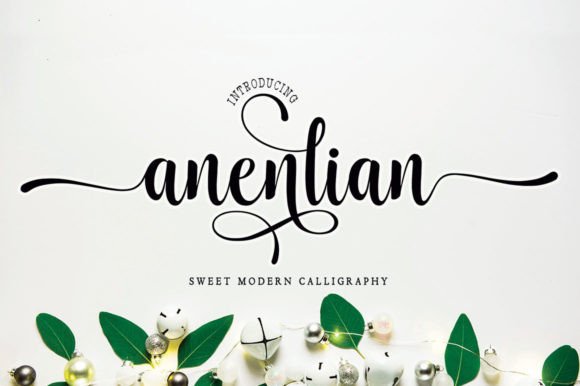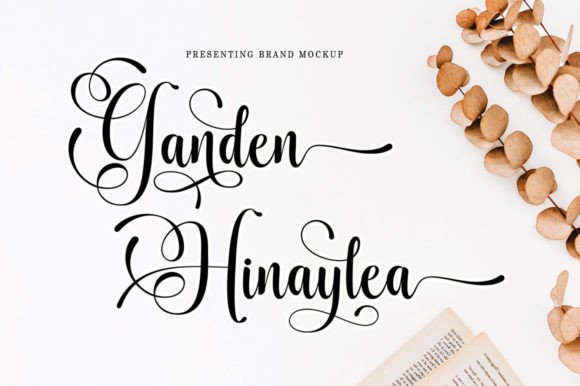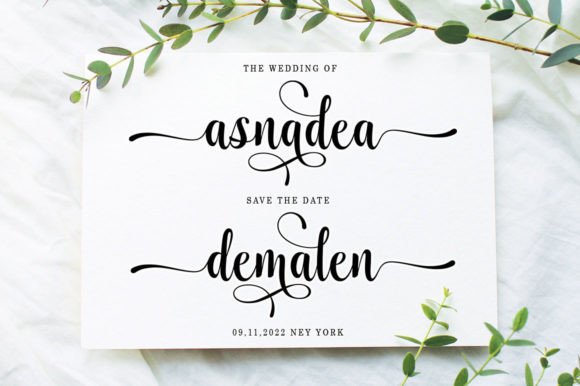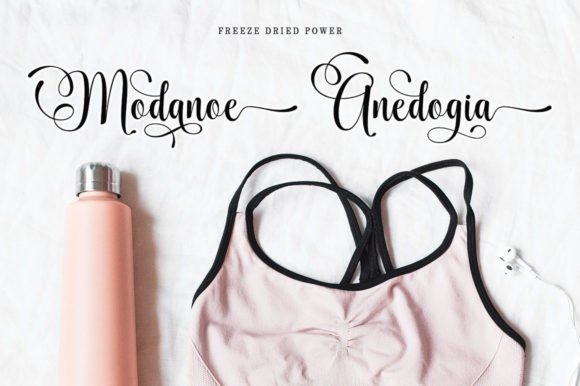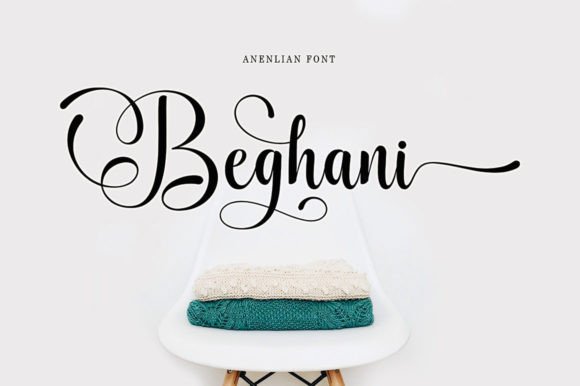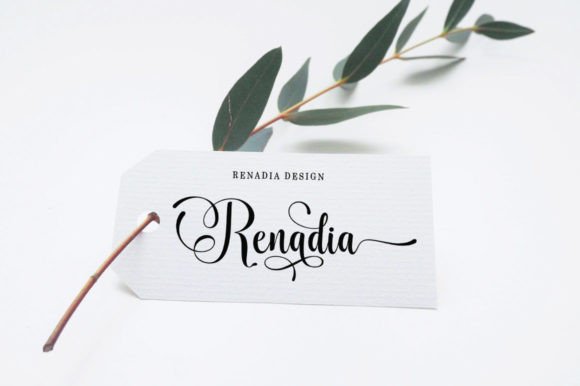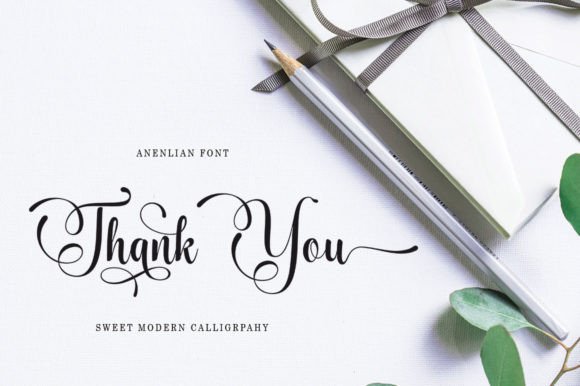
Anenlian Font
Anenlian Font: Elegant Script for Sophisticated Designs
“Anenlian” is a dazzling script font that brings sophistication to every design. Its intricate details make it perfect for various creative projects.
Key Features of Anenlian Font
• Elegant Style: Anenlian combines detailed craftsmanship with timeless beauty.
• Versatile Use: Suitable for many projects, from branding to invitations.
• PUA Encoding: Easy access to all glyphs and swashes for customization.
Anenlian’s refined style is ideal for creating sophisticated logo designs and branding materials that exude luxury.
Wedding Invitations
The font’s elegant characters are perfect for wedding invitations, adding a touch of class to your special day.
Poster Design
Use Anenlian to create eye-catching posters that convey sophistication and style.
Why Choose Anenlian Font?
Anenlian offers more than just beautiful letters. Here’s why it stands out:
• Adds a luxurious feel to your designs
• Provides extensive customization options
• Helps create a lasting, sophisticated impression
By using Anenlian, you open up new design possibilities. Its elegant style works well in many contexts, from website headers to print materials.
If you want a font that’s both intricate and elegant, Anenlian is an excellent choice. It’s perfect for adding sophistication to your work, especially for projects that need a refined touch.
Explore how Anenlian can transform your designs. From branding projects to special event materials, this font brings a graceful and captivating feel to your creations.